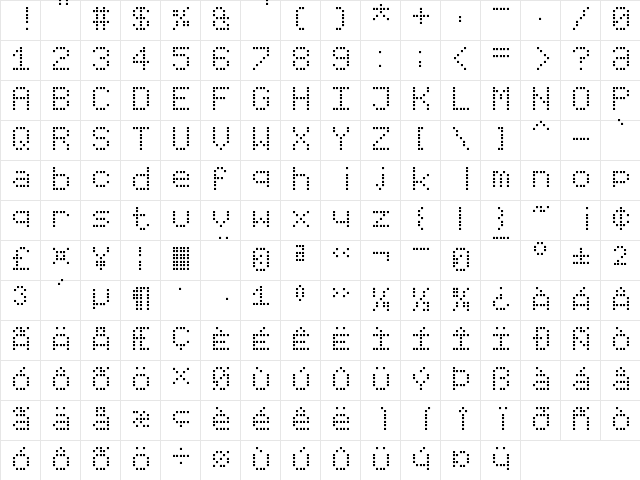
Virtual Pet Sans Regular
Design Context for Virtual Pet Sans Typeface
Virtual Pet Sans takes a measured approach to typography — its balanced proportions and neutral character make it a reliable workhorse for both digital and print work.